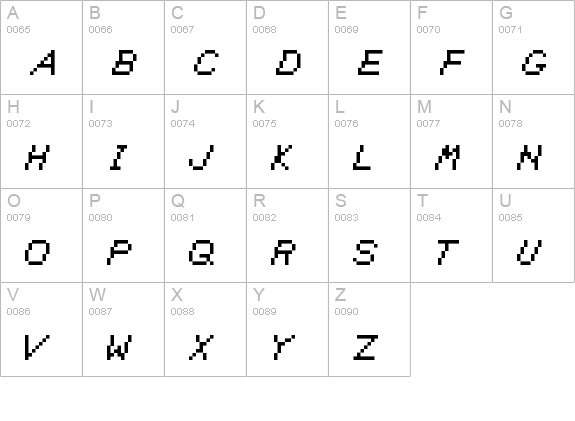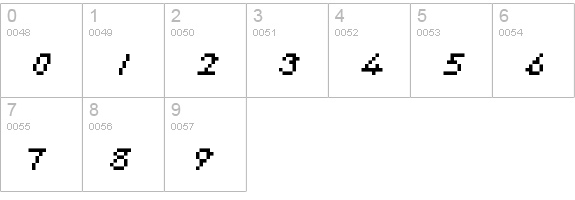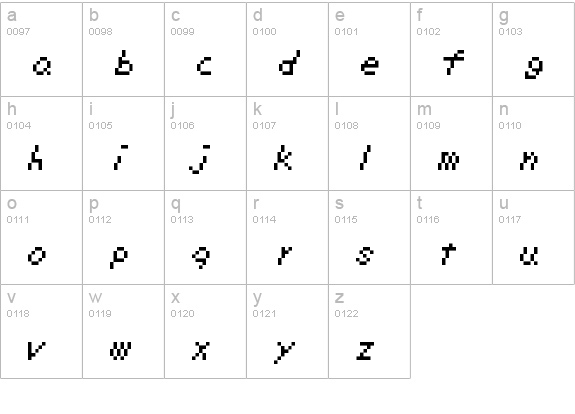
Zelda DX TT BRK Font Details
Zelda DX TT BRK font is a unique and eye-catching typeface that combines a classic look with a modern twist. With its bold and distinctive design, this font is perfect for creating attention-grabbing headlines, signage, and branding materials. The sharp edges and geometric shapes give Zelda DX TT BRK a futuristic feel, making it stand out in any project. What's even better is that Zelda DX TT BRK font is free to download at FontsMarket.com. This means you can easily access this stylish font and incorporate it into your designs without breaking the bank. Whether you're a designer looking to add a fresh touch to your work or a business owner wanting to make a statement with your branding, Zelda DX TT BRK font has got you covered. Download it today and start creating stunning visuals that will leave a lasting impression.